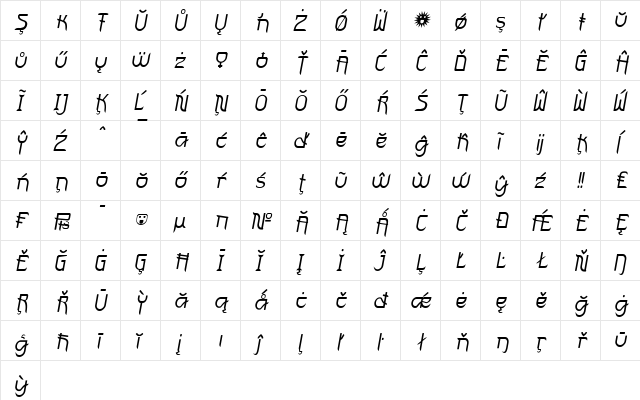
FuturexVariationSwishExtrasOblique VariationSwishExtrasOblique
| Designer | basic design by Graham Meade and Apostrophic Laboratories; this variation by Sara |
Design Context for FuturexVariationSwishExtrasOblique Typeface
FuturexVariationSwishExtrasOblique has a distinctly futuristic character, with geometric precision and clean angles that feel at home in technology, gaming, and sci-fi contexts. The dynamic lean of this cut emphasises speed and emphasis in any layout.